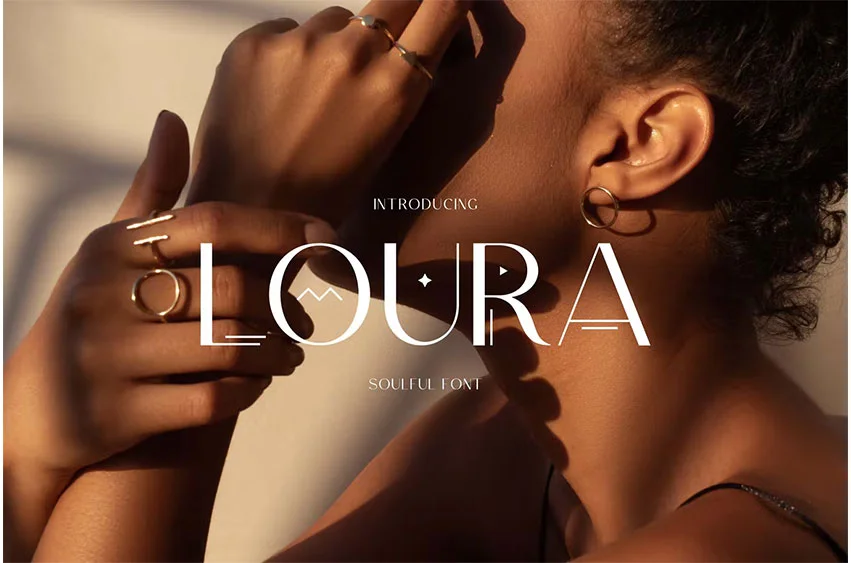
Loura Soulful Font
Loura Soulful Font is a sans serif font with geometric details.OTF, TTF, WOFF font files; Uppercase, numbers, punctuations, alternates; Multilingual support.